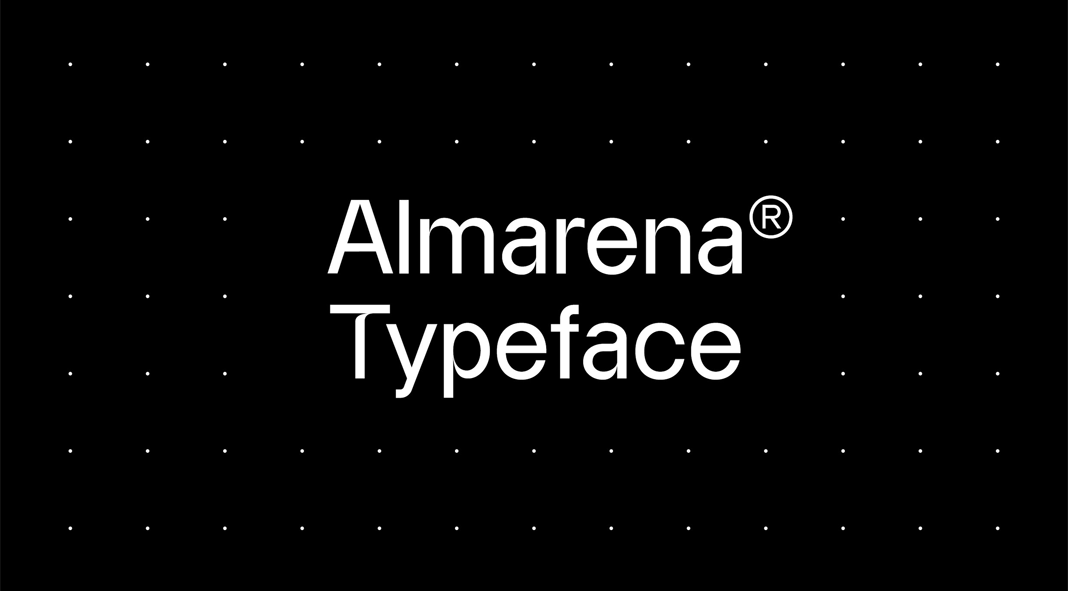
Almarena, a small family consisting of modern sans serif fonts.
Created by French designer Jérémie Gauthier in 2020, Almarena is a modern sans serif font family. It is equipped with two styles (Classic & Display) consisting of six font weights and plenty of alternative characters. You can use it for a wide range of work including branding, logo design, packaging, websites, communication design, etc. Just click on the following link to learn more about this unique typeface.